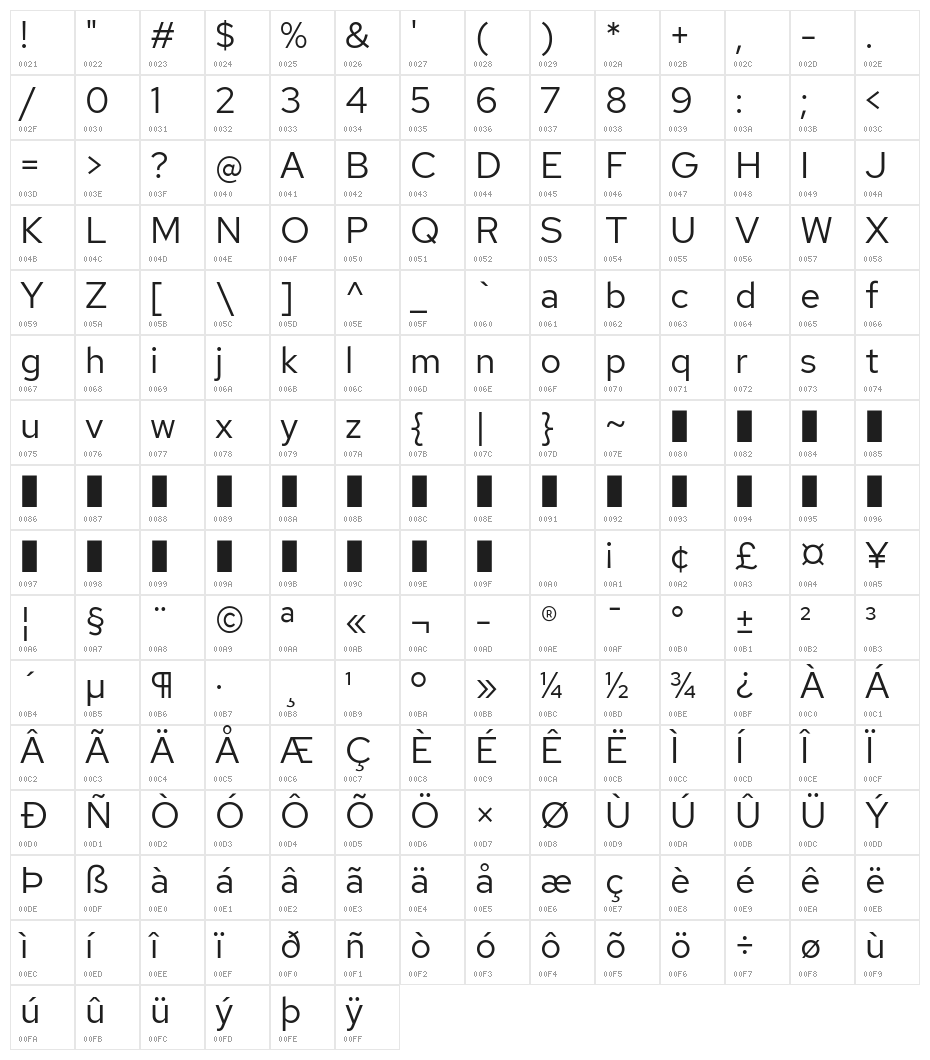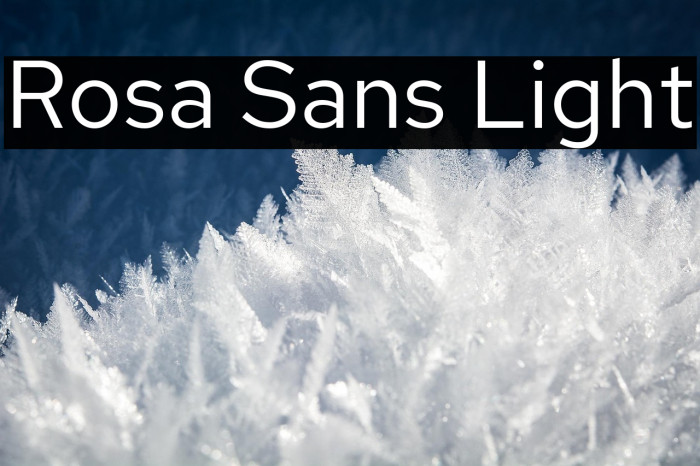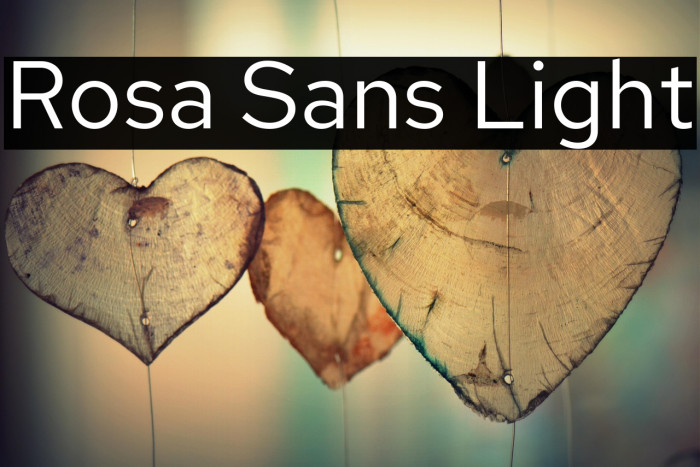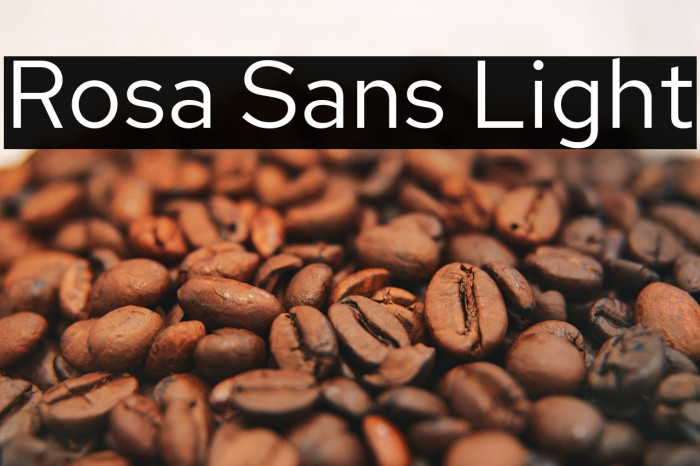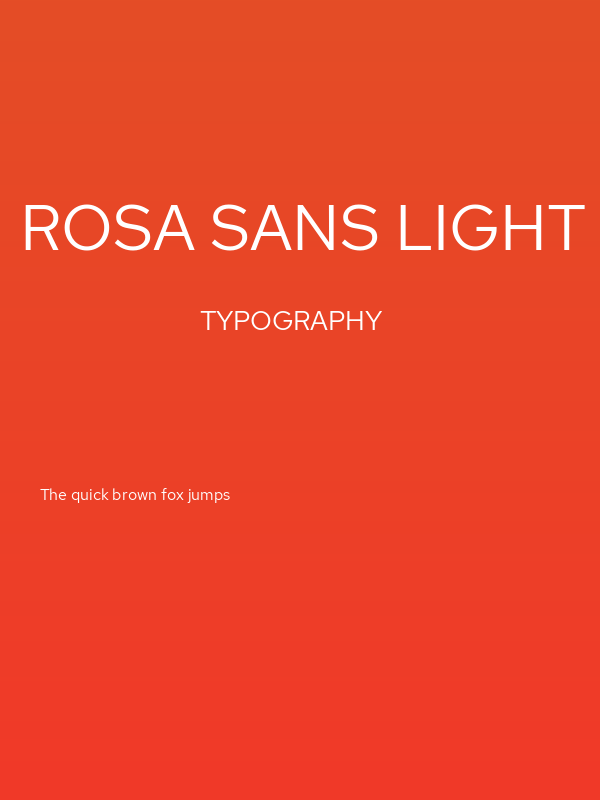
Rosa Sans Light Font
Rosa Sans Light Description
This font features a clean and modern sans-serif design, characterized by its simplicity and clarity. The letters are evenly spaced, providing a harmonious and balanced appearance. The strokes are consistent in width, contributing to a uniform look across all characters. The font's geometric shapes and smooth curves make it highly legible, even at smaller sizes. It includes a full set of uppercase and lowercase letters, numerals, and a variety of punctuation marks and special characters. The overall style is minimalist, making it versatile for various design applications.
| Proposed Projects | Ideal for branding, web design, user interfaces, and print media where clarity and modernity are essential. |